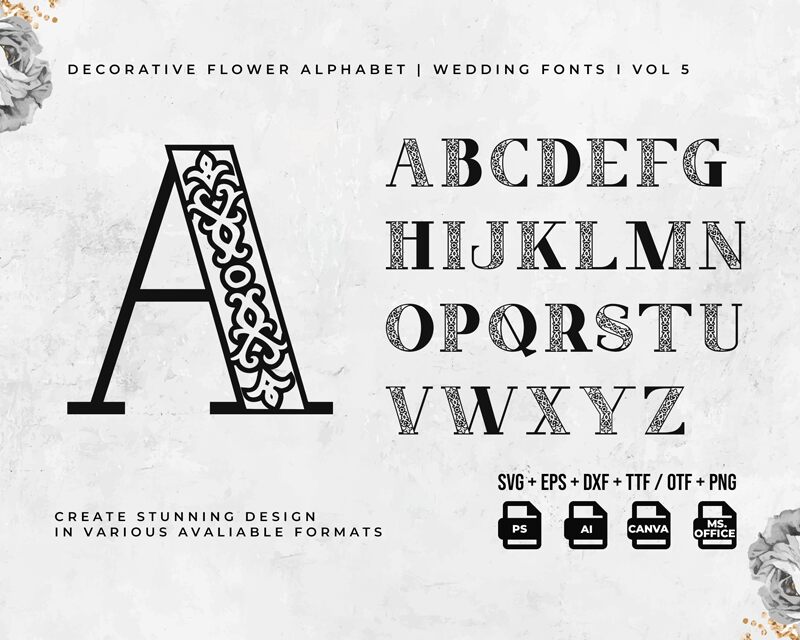
Decorative Font Olivia
Decorative Olivia font by Kong Font is bold display typeface with ornate, intricate detailing. The elegant design possesses a vintage-inspired, classic appeal making for a sophisticated presence in projects that call for it.
This free font will shine in logos and branding designs, proof of work presentations, book covers or page titles, magazine headings and articles, posters, invitations to classy events like weddings or engagements, stationery items…